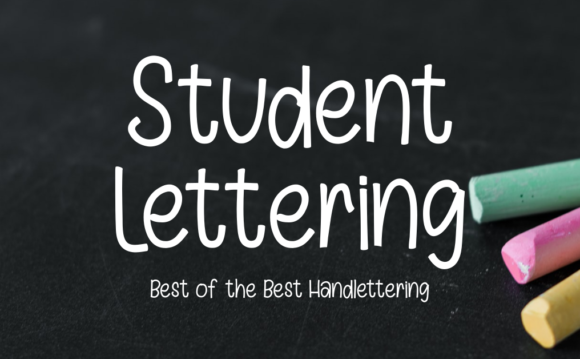
In quest of a handwritten font that echoes the charm of your innate creativity? Look no further than Student Lettering, a font family crafted with the essence of simplicity and elegance. Part of the esteemed script font family, Student Lettering opens up a world of possibilities for your artistic expressions.
With its slender, artfully drawn lines, Student Lettering is a testament to the beauty of minimalism. Not only does it add a touch of personalization to your projects, but its impeccable design ensures that your intended message shines through with grace and clarity.
Unleash your imagination and discover endless possibilities with Student Lettering. Its delicate strokes dance across your screen, capturing the heartfelt emotions and stories you seek to convey. Whether it's a heartwarming greeting card, a captivating craft design, or a stunning print, Student Lettering transforms your words into captivating visual masterpieces.
Goodrichees, the creative force behind Student Lettering, is renowned for their dedication to excellence. Each character, lovingly crafted, embodies their unwavering commitment to producing fonts that resonate with users worldwide. Their passion shines through in every letterform, ensuring that Student Lettering is more than just a font – it's an experience.
Experience the magic of Student Lettering today and witness the transformation of your designs. Its unique charm and versatility make it the perfect companion for a diverse range of projects, effortlessly elevating their visual appeal. Join the growing community of creatives who have embraced Student Lettering, and unlock the endless possibilities it holds.